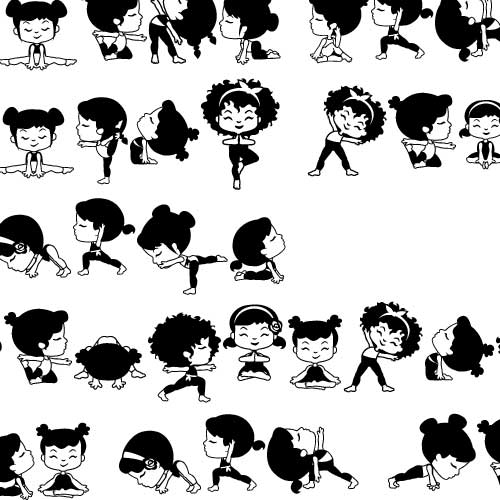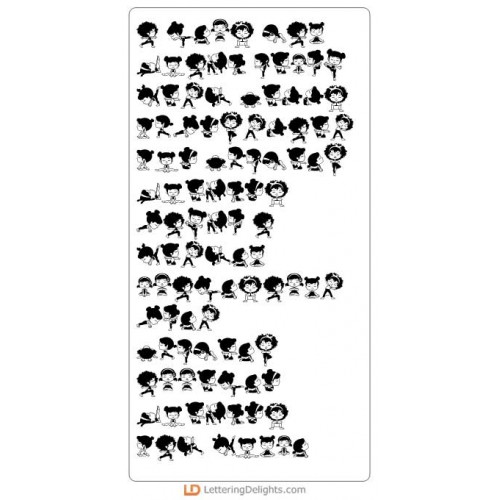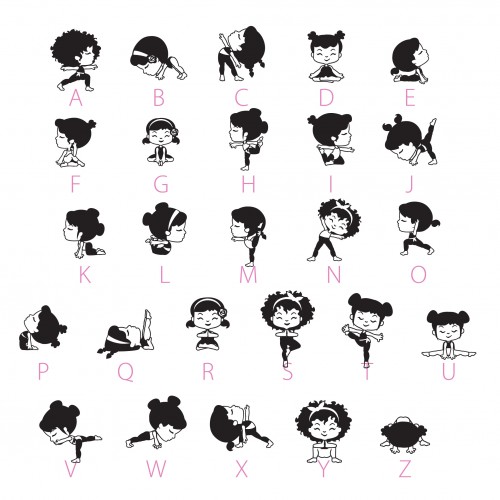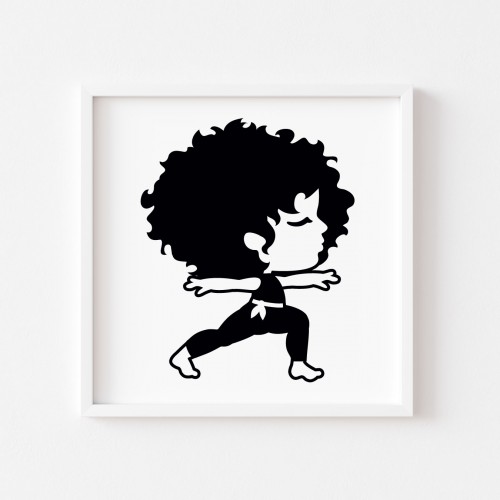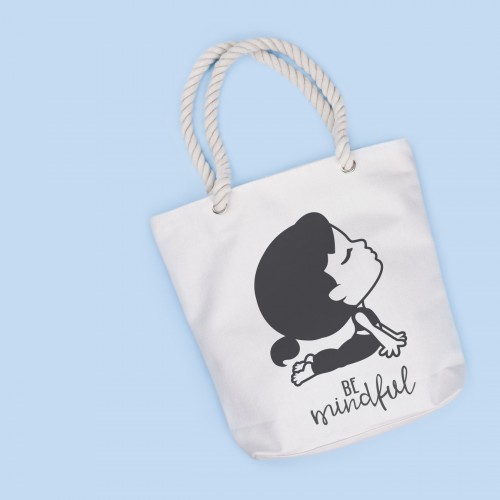
DB Just Yoga - DB
This adorable doodlebat features 26 little yogis. Perfect for crafts, decor, gifts, cards, planner stickers, scrap book pages and more!